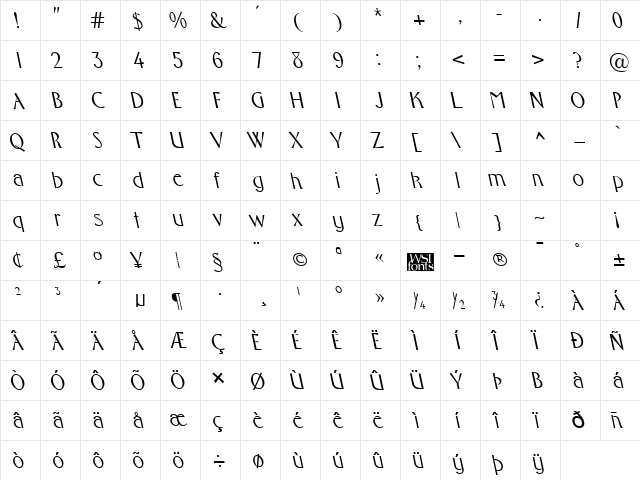
FosterBS Regular Font Preview
FosterBS Regular
Design Context for FosterBS Typeface
FosterBS is a composed and adaptable typeface that performs quietly and consistently across a wide range of design contexts.